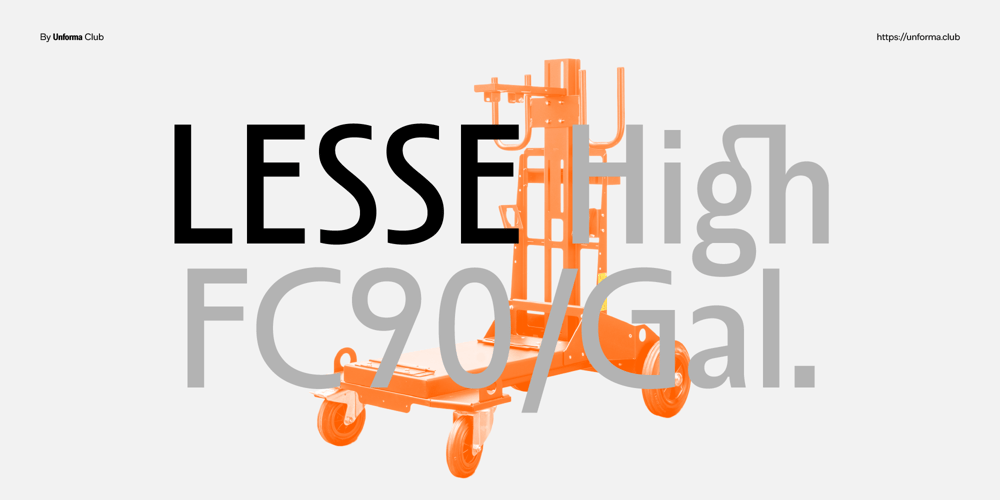
Lesse Font Family was designed by Taufik Oktama and published by Unforma Club. Lesse contains 1 styles and family package options. Lesse is a versatile typeface that adapts classic Roman letter proportions to provide a classy design with a modern twist. It includes a large number of ligatures as well as optional ligatures, which give any design a distinct personality and flair. Lesse, which supports 193 languages, is both inclusive and extremely functional. While it thrives in display contexts, its balanced shapes assure readability in body text, making it an excellent choice for a wide range of typographic applications.